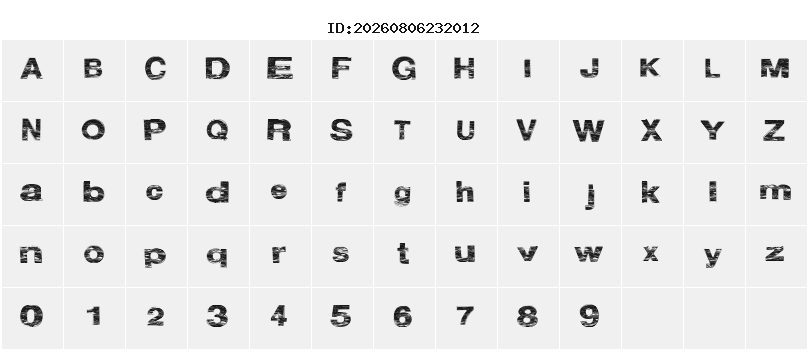
• Font Name: OceanTwelve
• Designer: Xerographer Fonts Max Infeld
• Description: Made at Xerographer Studios in Ojai,CA
About OceanTwelve.ttf
OceanTwelve.ttf is a modern, elegant sans-serif font designed for ultimate readability and visual harmony. Perfect for branding, headlines, web design, and print materials.